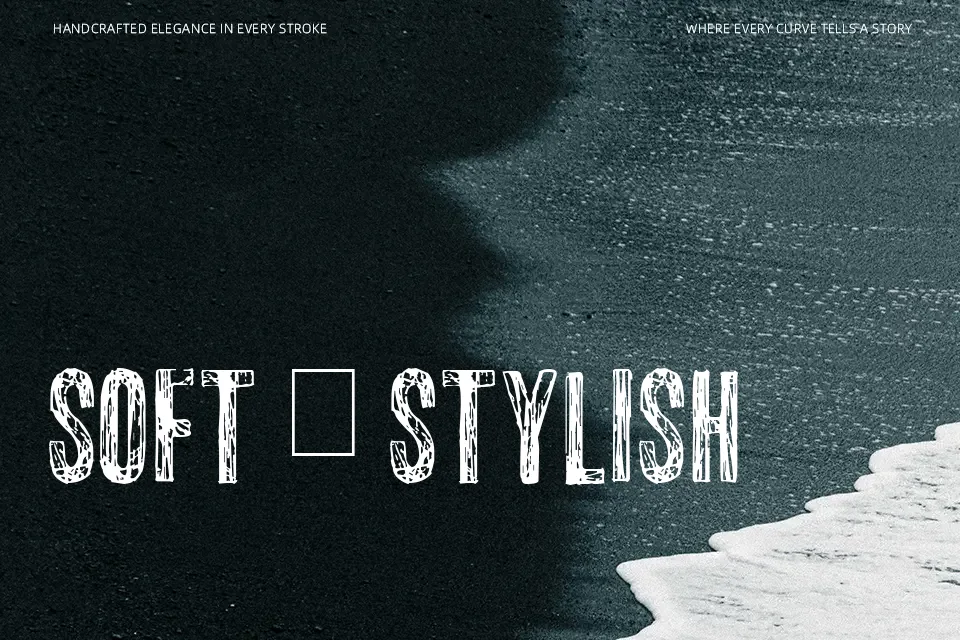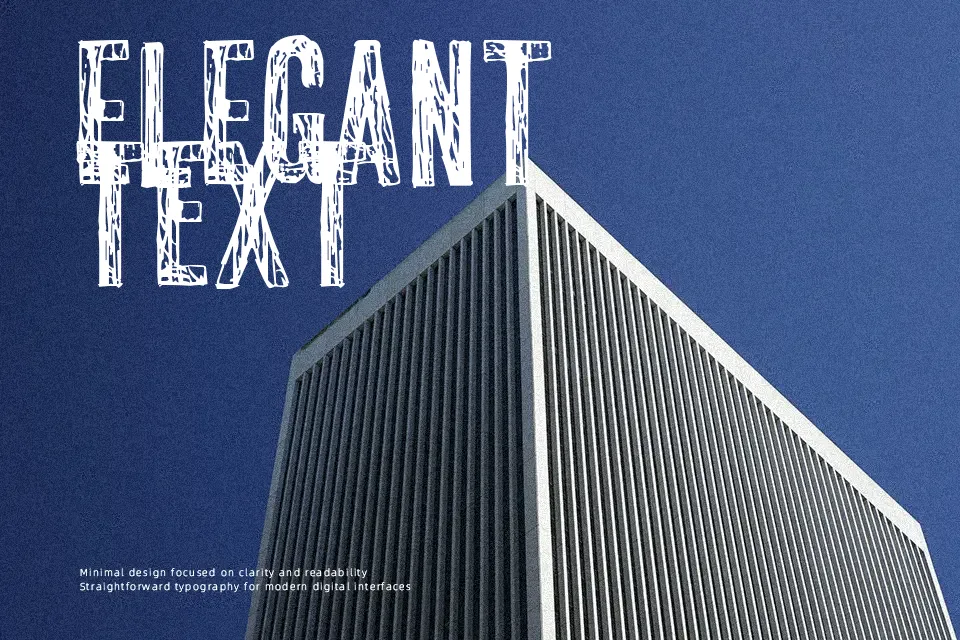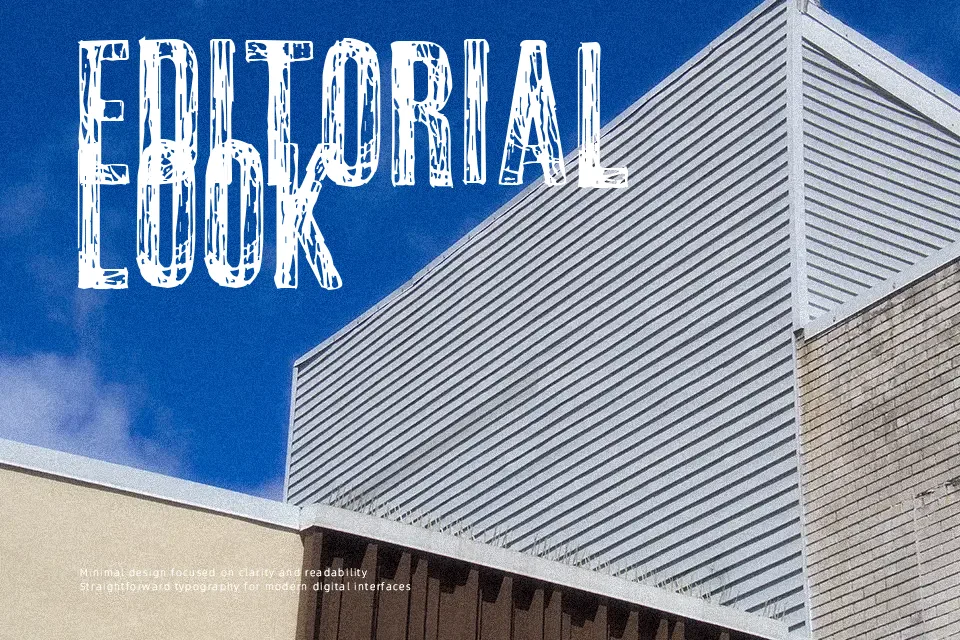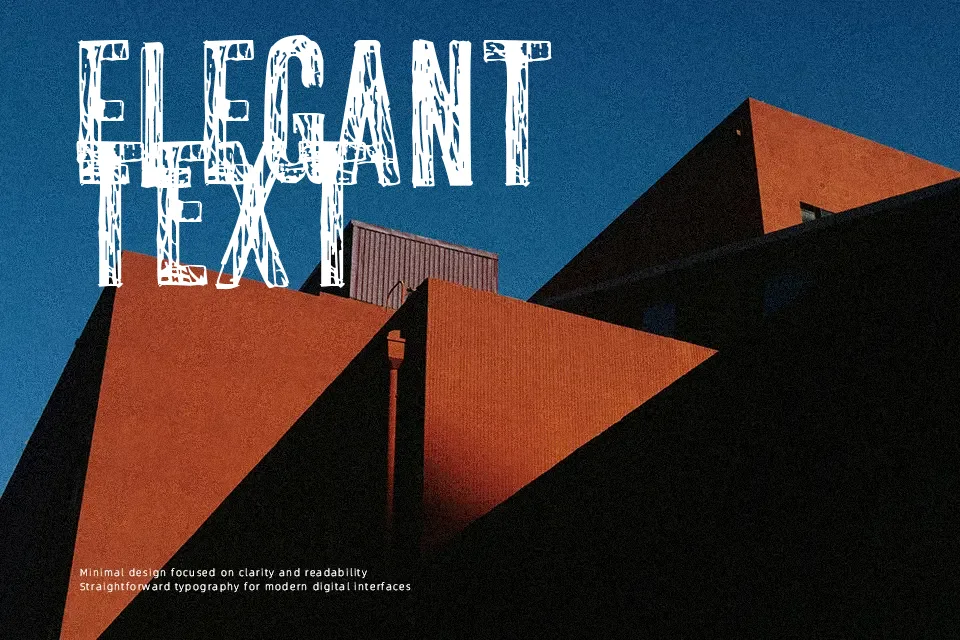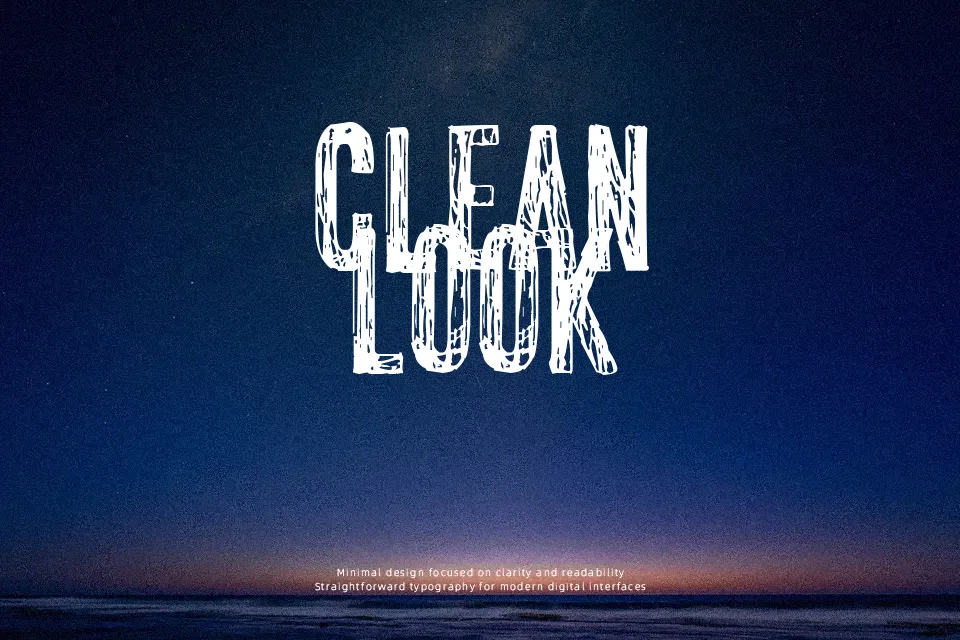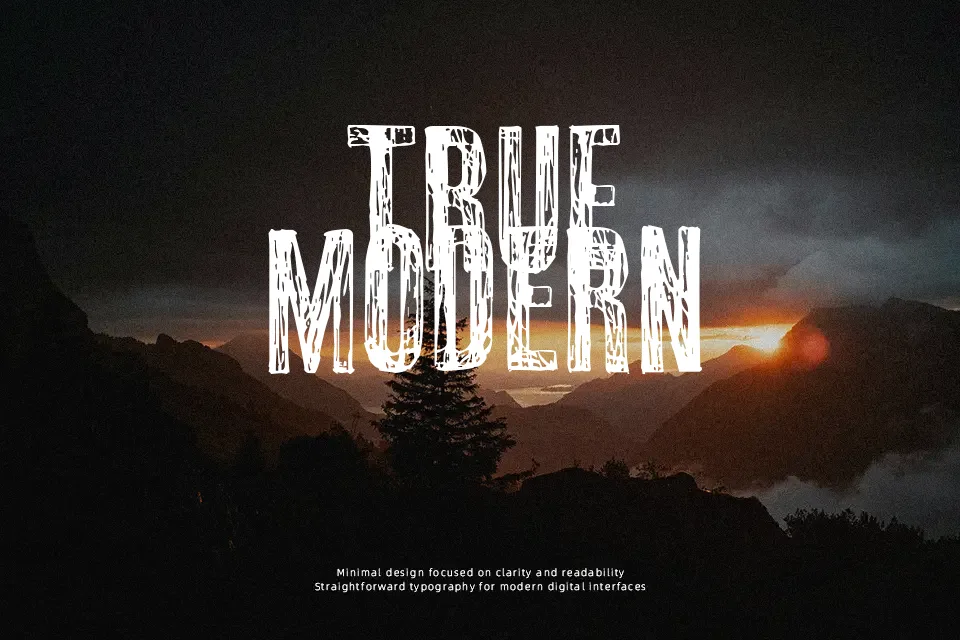
Scribble 2 Font
Scribble 2 Font presents an aggressive, sketch-like structure defined by overlapping pencil marks and frayed, textured stroke contours. Letterforms exhibit inconsistent stroke thickness and variable character widths, creating a restless visual rhythm across words. The spacing remains relatively loose to prevent adjacent scratched lines from merging together, which helps sustain letter separation across short phrases. Heavy linear density provides commanding presence in streetwear branding, event flyers, and horror cover artwork. However, the textured chaos significantly impairs continuous reading and renders tiny interface labels completely illegible. The typeface works best when restricted to prominent display sizes where individual scratches contribute to graphic character rather than visual noise.
Best For: music festival posters, streetwear branding, album artwork, horror book covers
Not Ideal For: continuous paragraph text, mobile app UI labels, legal documents, technical manuals
Perfect for branding, headline, and music, with a artistic and decorative style.